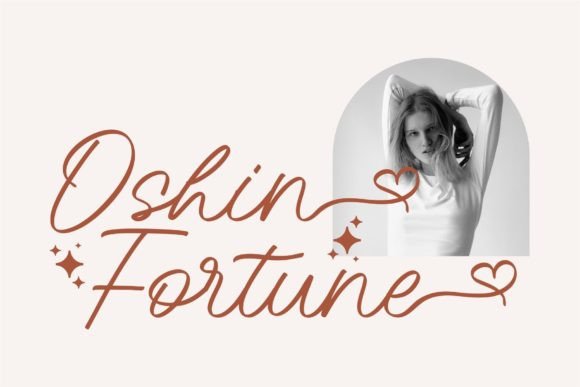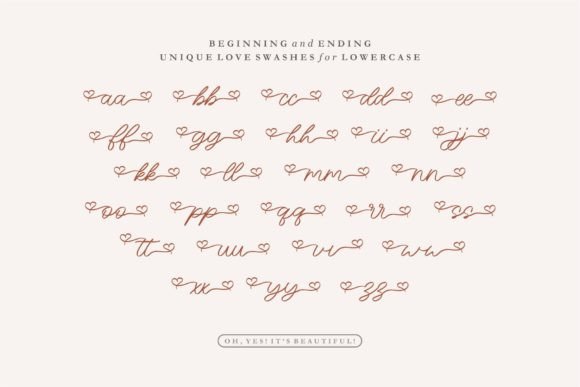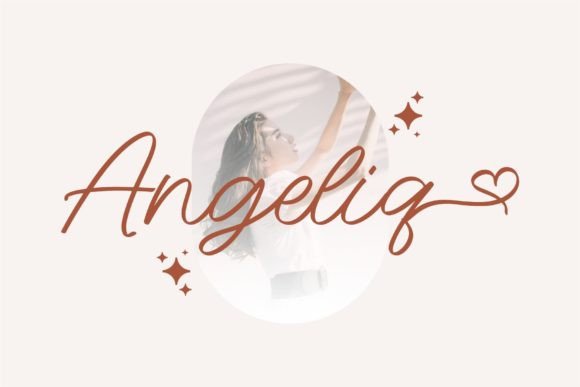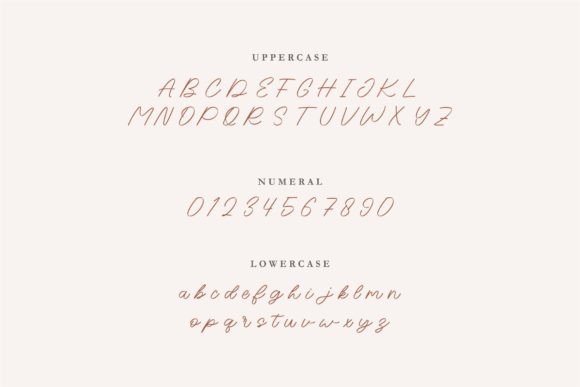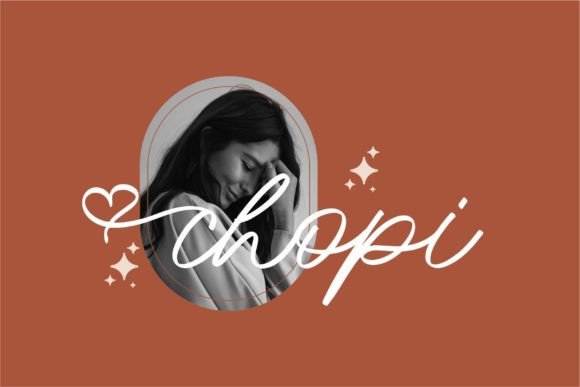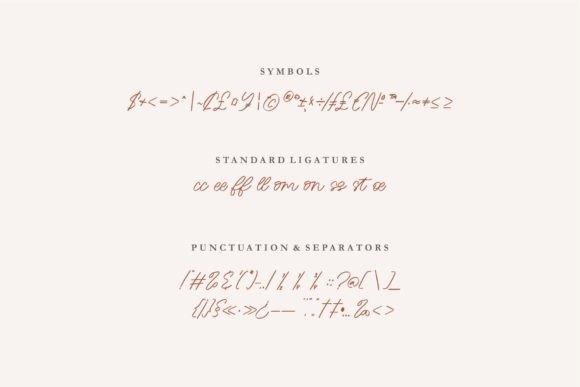
The Perfect Script Font for Your Next Creative Project
Have you ever found yourself staring at a blank page, trying to come up with the perfect phrase to capture the essence of your latest project? For designers, this moment is all too familiar, and the right font can make all the difference. That’s where the Bique Kisty Font comes in – a romantic and unique script font designed to bring your creative ideas to life.
This versatile font is perfect for a wide range of applications, from wedding designs and romantic events to headlines, billboards, and magazine titles. With its PUA encoding, you can easily access all the glyphs and swashes to add a personal touch to your designs. Whether you’re a seasoned designer or just starting out, the Bique Kisty Font is a valuable addition to any font library, guaranteed to elevate your creations and leave a lasting impression.
Bique Kisty Font Key Features
- Font Family: Bique Kisty is a unique font family designed to mimic traditional hand-painted or hand-drawn lettering.
- Unique Characteristics: Bique Kisty features a distinctive, hand-crafted aesthetic with varying letter spacing, subtle irregularities, and a mix of bold and delicate strokes.
Bique Kisty Font Review
Overall, I think the Bique Kisty font has a lot of potential, but it also has some areas where it falls short.
- The Bique Kisty font has a unique and stylish design that could work well in a variety of contexts.
- The font is highly customizable, with a wide range of font weights, styles, and sizes to choose from.
- The font is also highly legible, making it a great choice for body text or other areas where readability is important.
- The Bique Kisty font may be too ornate or distracting for some uses, such as in academic or technical writing.
- The font may not be suitable for very small or very large sizes, as it can become difficult to read at these extremes.
- The font’s unique design may not be suitable for all audiences, particularly those who are used to more traditional or conservative font styles.
Overall, I think the Bique Kisty font is a solid choice for designers who want to add some visual interest to their projects. However, it’s not without its limitations, and designers should be aware of these before using the font in their work.
Tips for Getting the Most Out of Bique Kisty Font
Here are some tips to help you get the most out of Bique Kisty Font:
- Use Bique Kisty Font for headings and titles to add a touch of elegance.
- Combine Bique Kisty Font with other fonts for a unique and creative look.
Bique Kisty Font is perfect for:
- Artistic projects and creative
Alternatives to Bique Kisty Font
Playfair Display is a high-end serif font with elegant and luxurious feel, perfect for creating a sophisticated and high-end look. It is ideal for use in magazine titles, book covers, and high-end branding.
Comparison to Bique Kisty Font: While Bique Kisty Font has a unique and quirky feel, Playfair Display is more traditional and elegant. Bique Kisty Font has a more modern feel and is better suited for digital use, whereas Playfair Display is more suited for print use.
Great Vibes is a modern script font with a relaxed and casual feel, perfect for creating a friendly and approachable look. It is ideal for use in social media branding, advertising, and promotional materials.
Comparison to Bique Kisty Font: While Bique Kisty Font has a more unique and quirky feel, Great Vibes is more playful and laid-back. Great Vibes is better suited for use in digital media, whereas Bique Kisty Font is more suited for print use.
Montserrat is a modern sans-serif font with a geometric feel, perfect for creating a clean and minimalist look. It is ideal for use in digital branding, web design, and mobile apps.
Comparison to Bique Kisty Font: While Bique Kisty Font has a more unique and quirky feel, Montserrat is more modern and sleek. Montserrat is better suited for use in digital media, whereas Bique Kisty Font is more suited for print use.